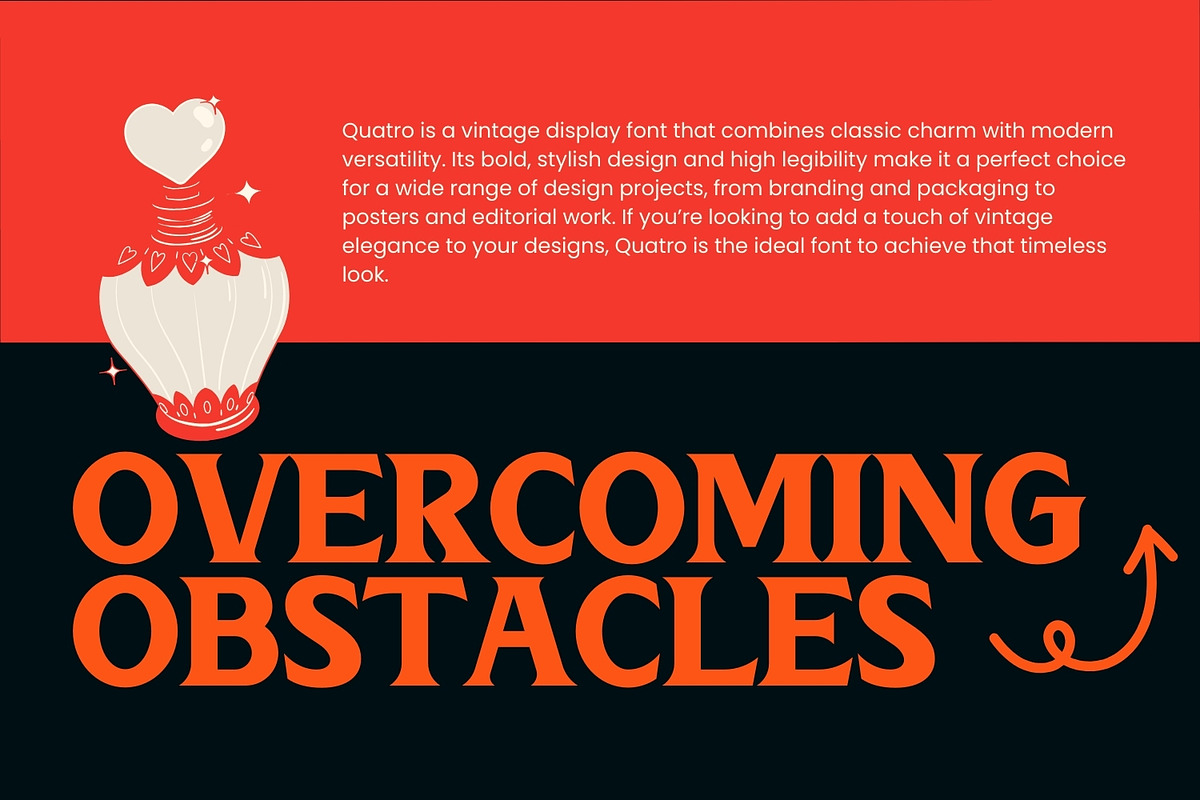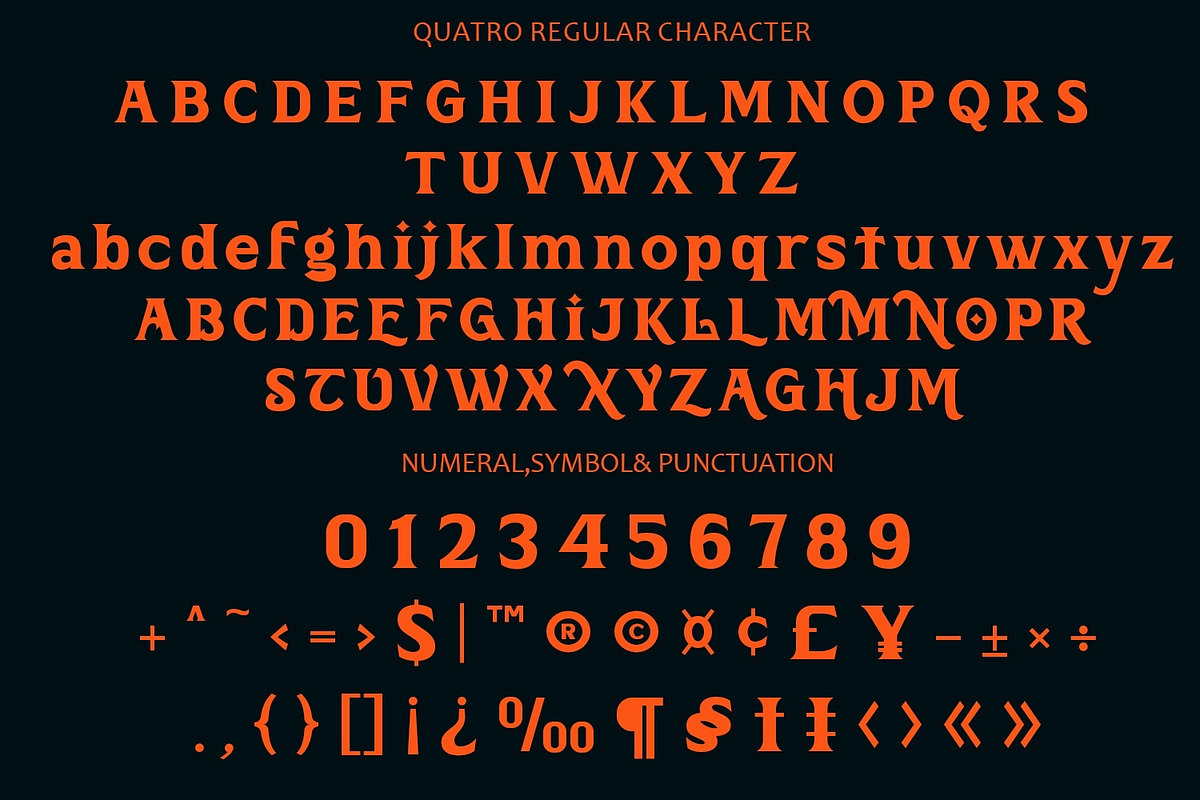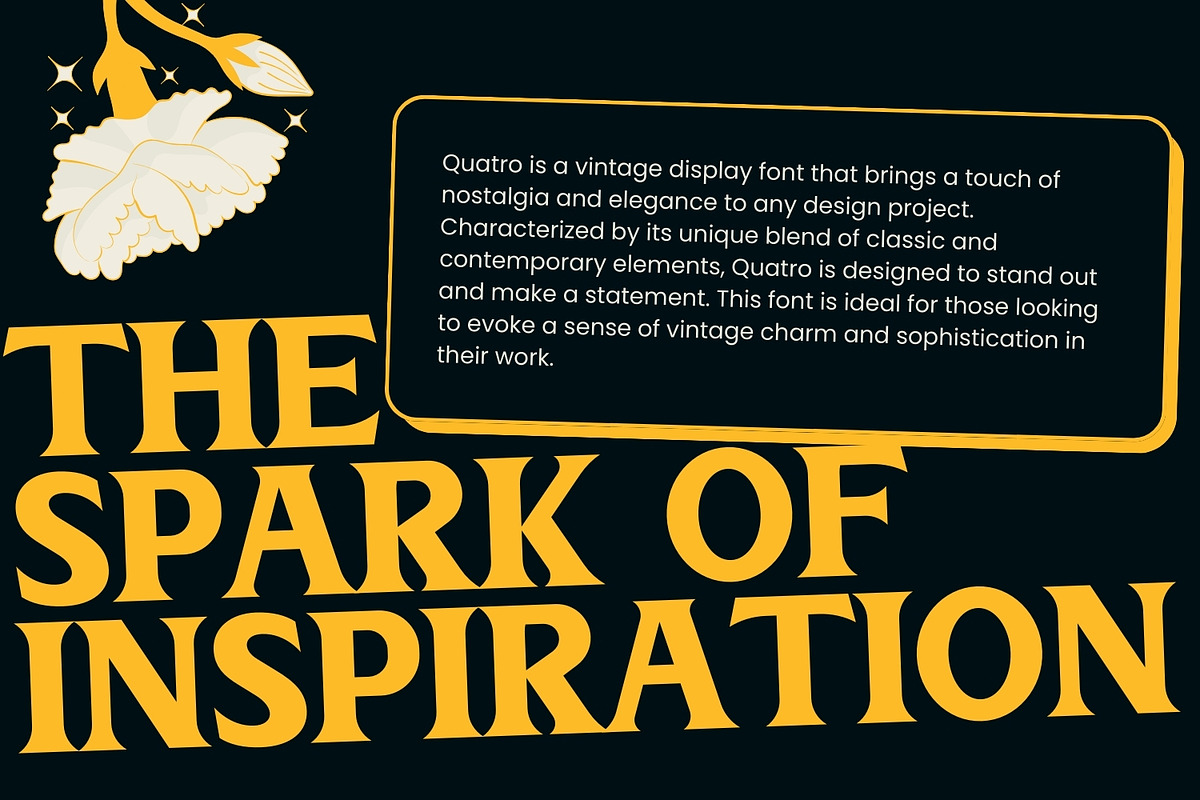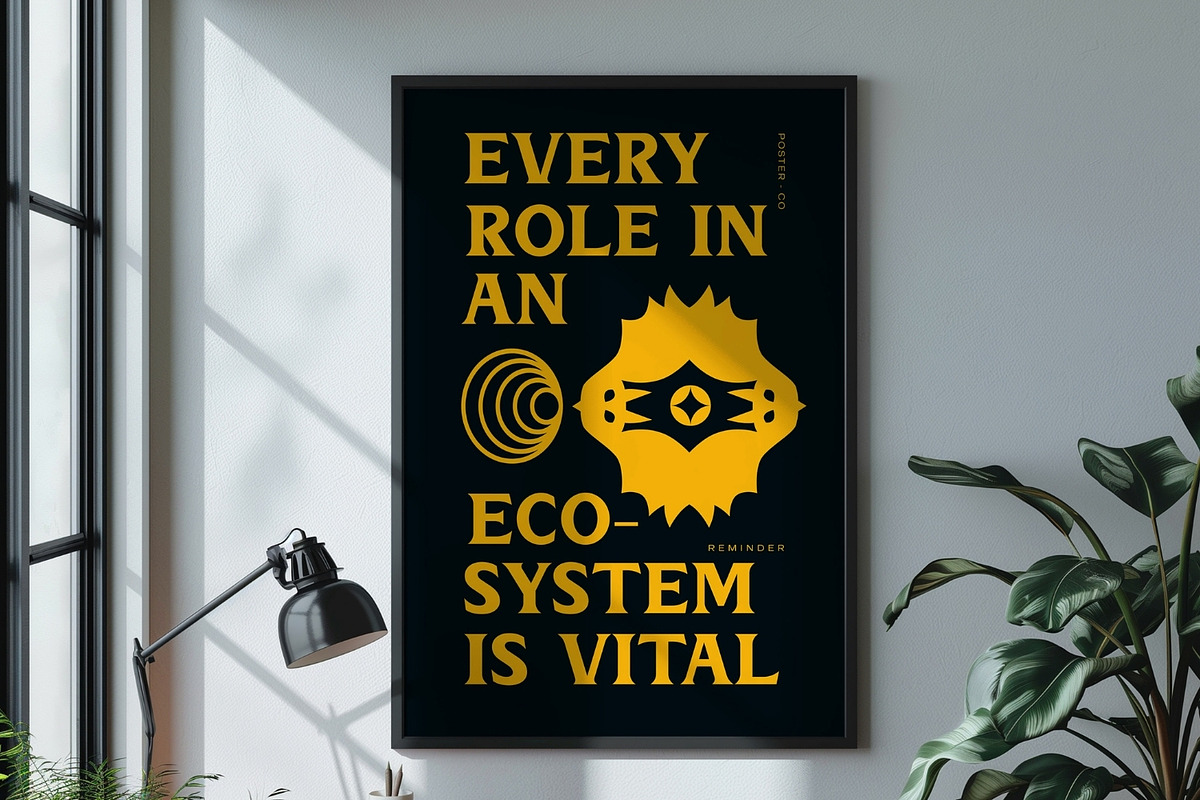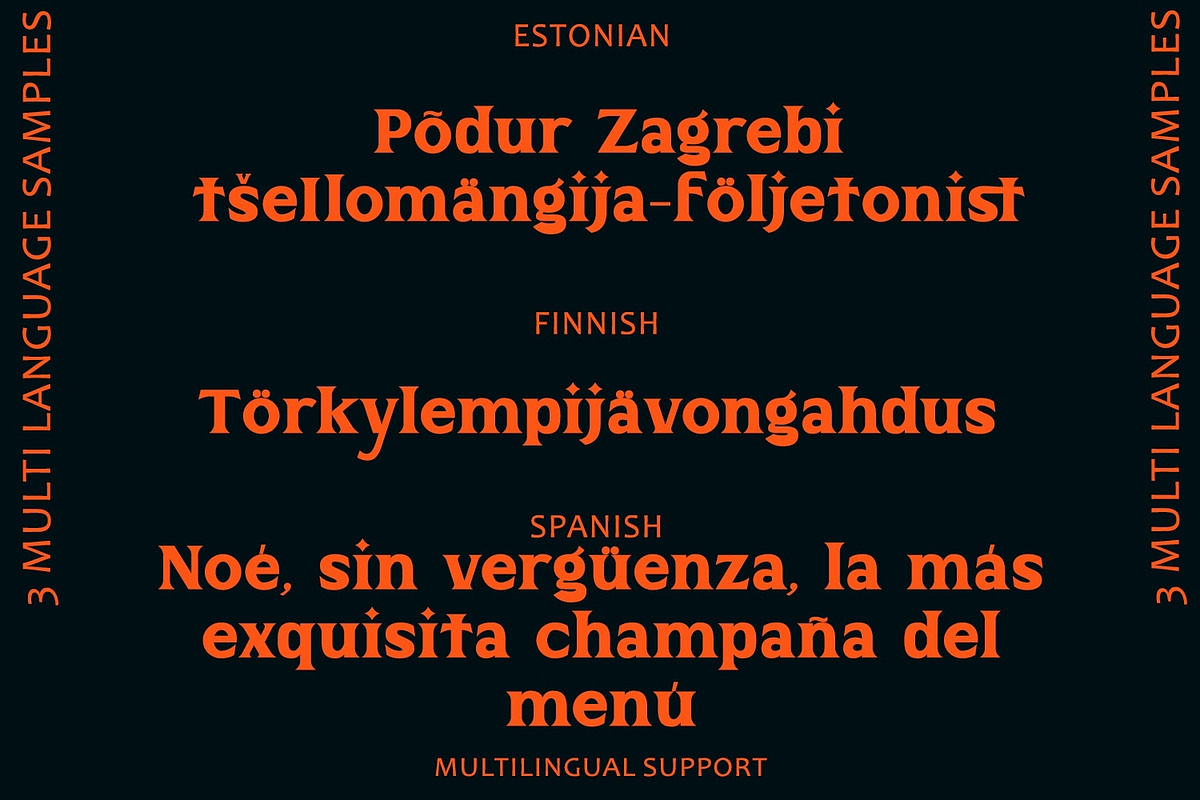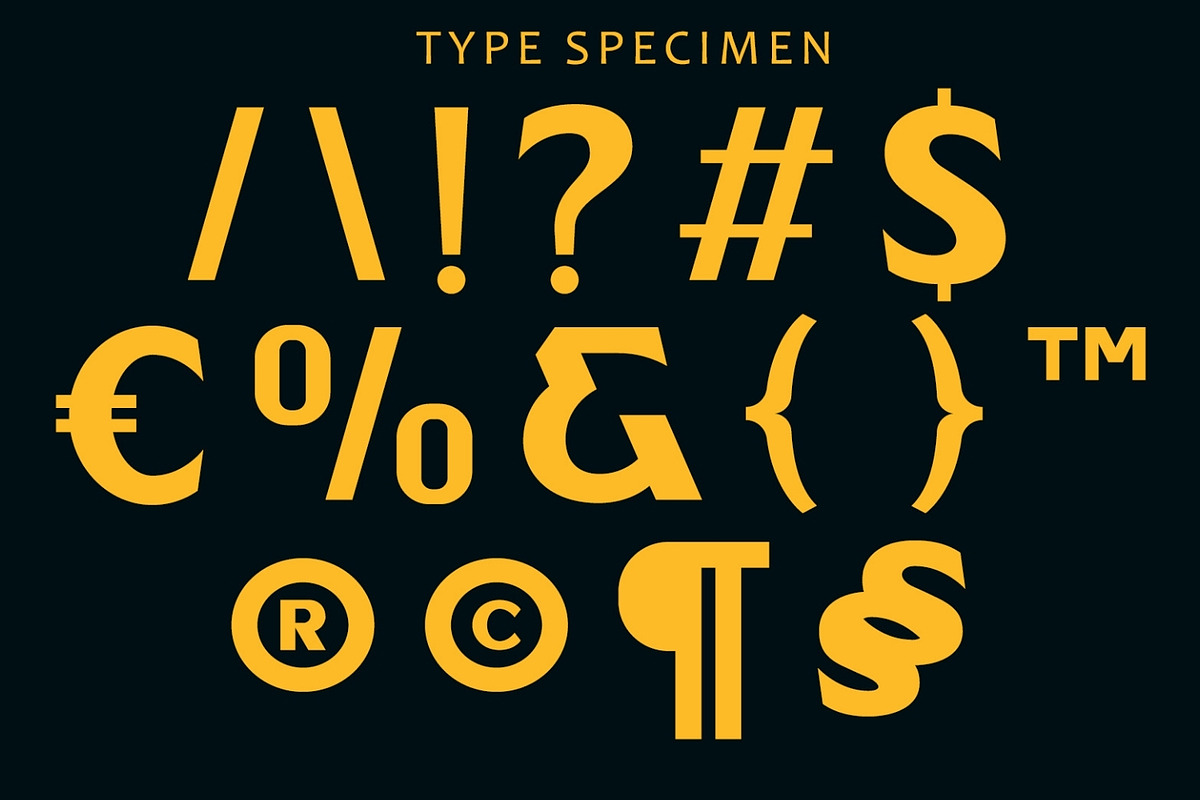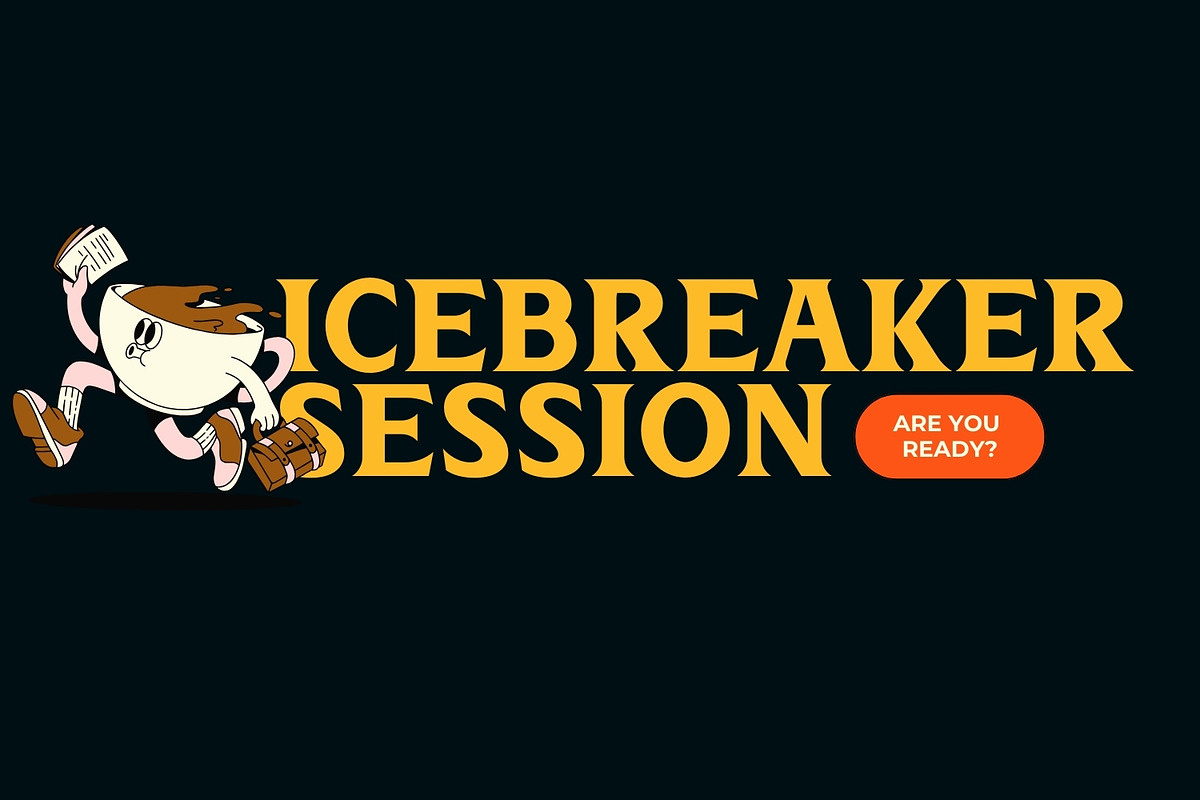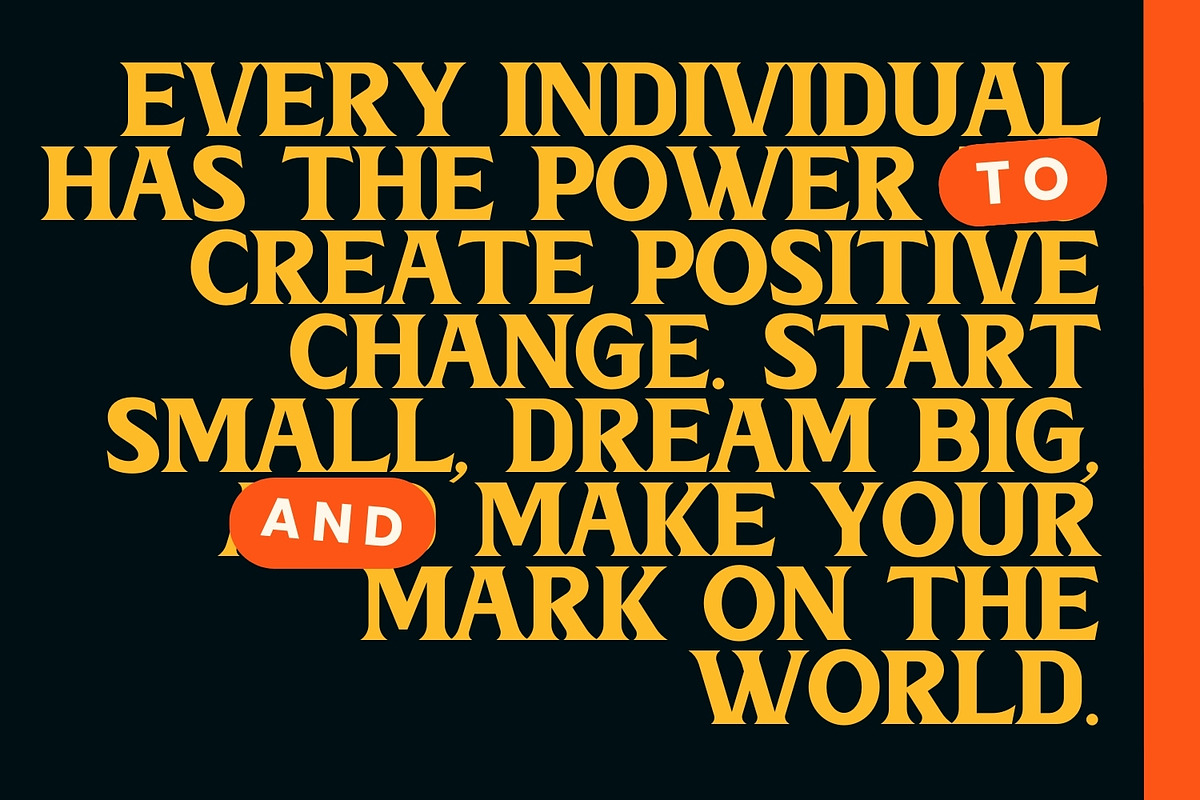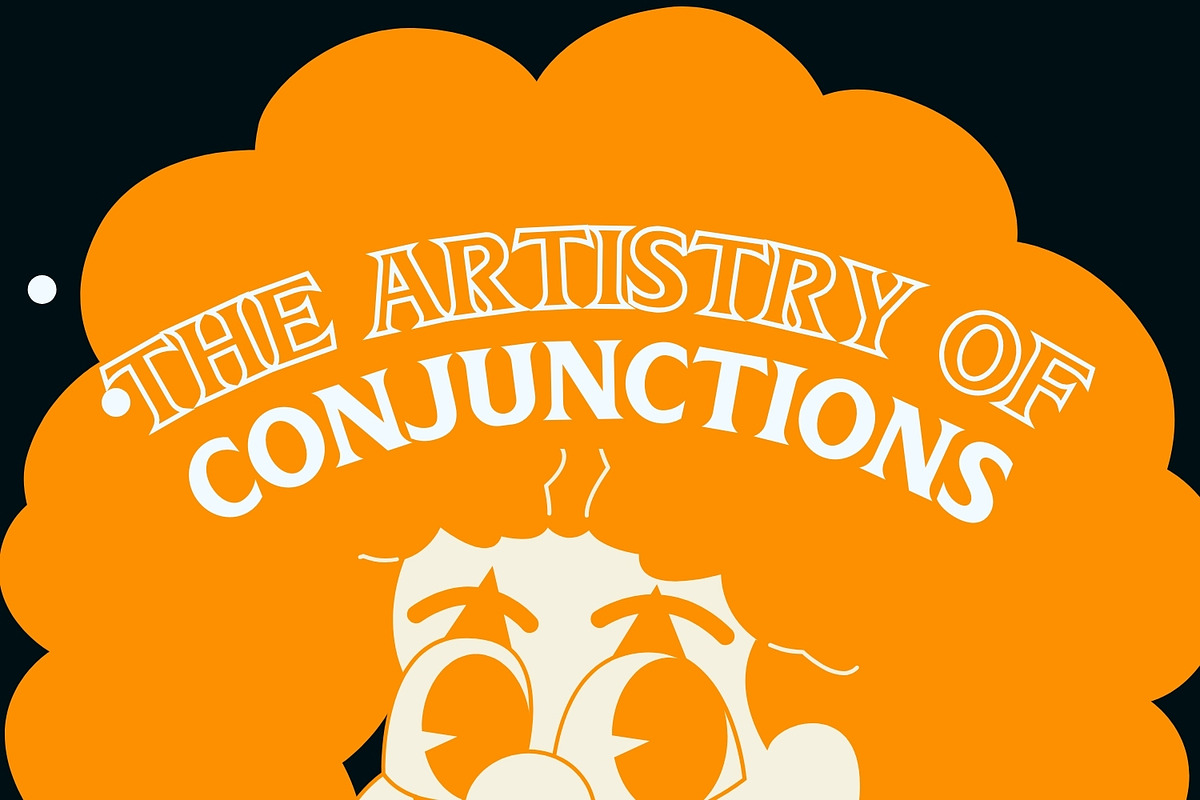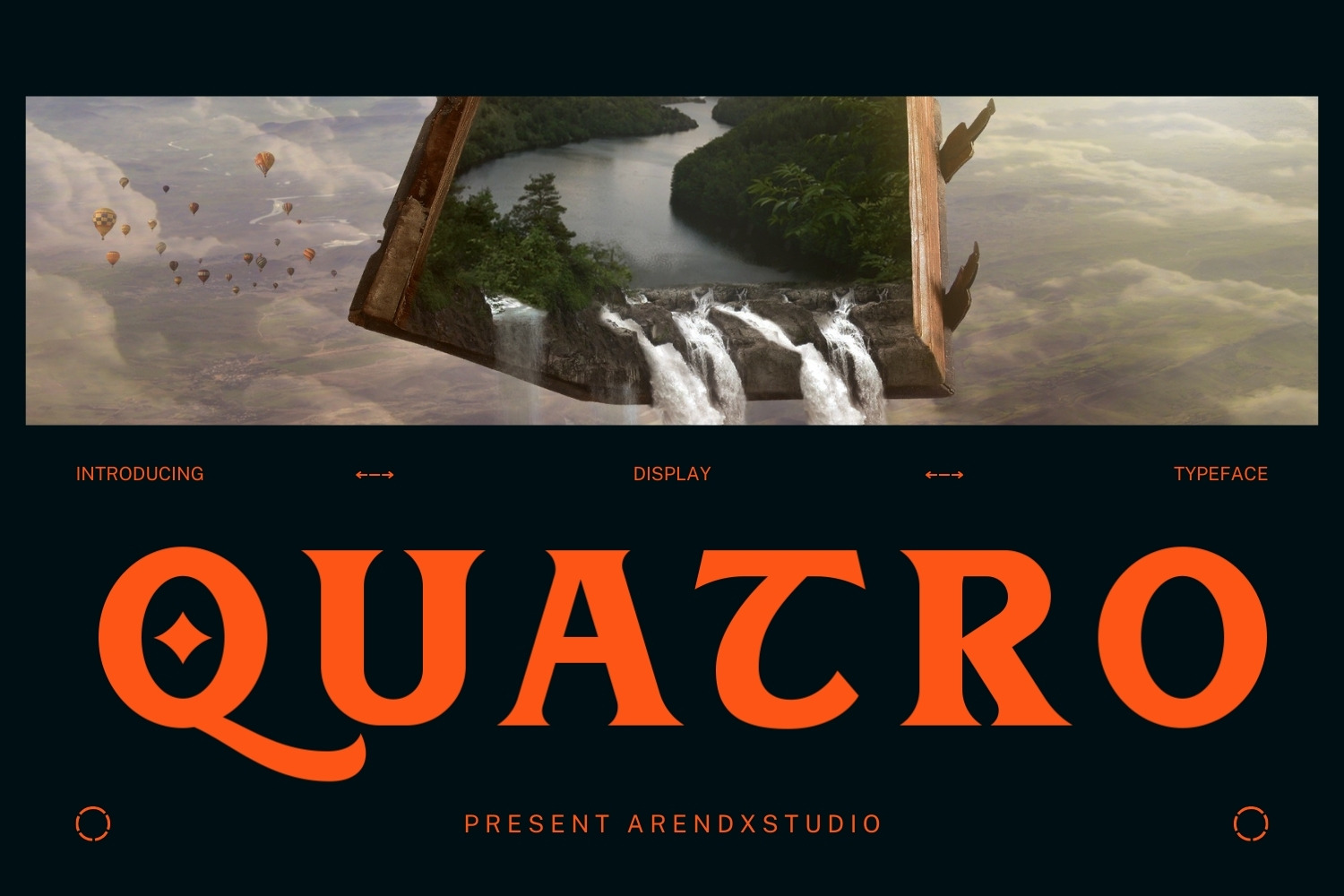
Quatro Vintage Display Font
Quatro: A Vintage Display Font
Overview:
Quatro is a vintage display font that brings a touch of nostalgia and elegance to any design project. Characterized by its unique blend of classic and contemporary elements, Quatro is designed to stand out and make a statement. This font is ideal for those looking to evoke a sense of vintage charm and sophistication in their work.
Vintage Aesthetic:
- Quatro features a distinctive vintage style, inspired by typography from the early to mid-20th century. Its retro look is perfect for projects that aim to capture a timeless feel.
Bold and Eye-Catching:
- As a display font, Quatro is designed to grab attention. Its bold letterforms make it an excellent choice for headlines, posters, and signage.
Stylish Serifs:
- The font includes elegantly styled serifs that add a touch of refinement and help to enhance its vintage appeal.
Versatile Usage:
- While ideal for vintage-themed designs, Quatro is versatile enough to be used in a variety of contexts, including branding, packaging, logos, and editorial design.
High Legibility:
- Despite its decorative elements, Quatro maintains high legibility, making it suitable for both large and small text.
Comprehensive Character Set:
- Quatro includes a full set of upper and lower case letters, numerals, punctuation, and special characters, providing everything you need for complete and cohesive design work.
Applications:
Branding and Logos:
- The vintage charm of Quatro makes it perfect for creating memorable logos and branding materials that stand out.
Posters and Signage:
- Its bold and eye-catching design is ideal for posters, banners, and other large-format signage that needs to draw attention.
Packaging:
- Quatro’s vintage aesthetic adds a unique and appealing touch to product packaging, making it particularly suitable for artisanal or heritage brands.
Editorial Design:
- The font's stylish serifs and high legibility make it a great choice for magazine covers, book titles, and other editorial design elements.
Conclusion:
Quatro is a vintage display font that combines classic charm with modern versatility. Its bold, stylish design and high legibility make it a perfect choice for a wide range of design projects, from branding and packaging to posters and editorial work. If you’re looking to add a touch of vintage elegance to your designs, Quatro is the ideal font to achieve that timeless look.